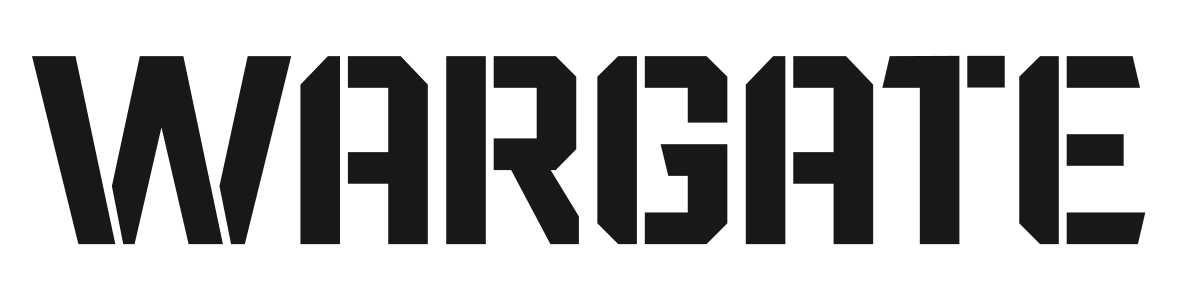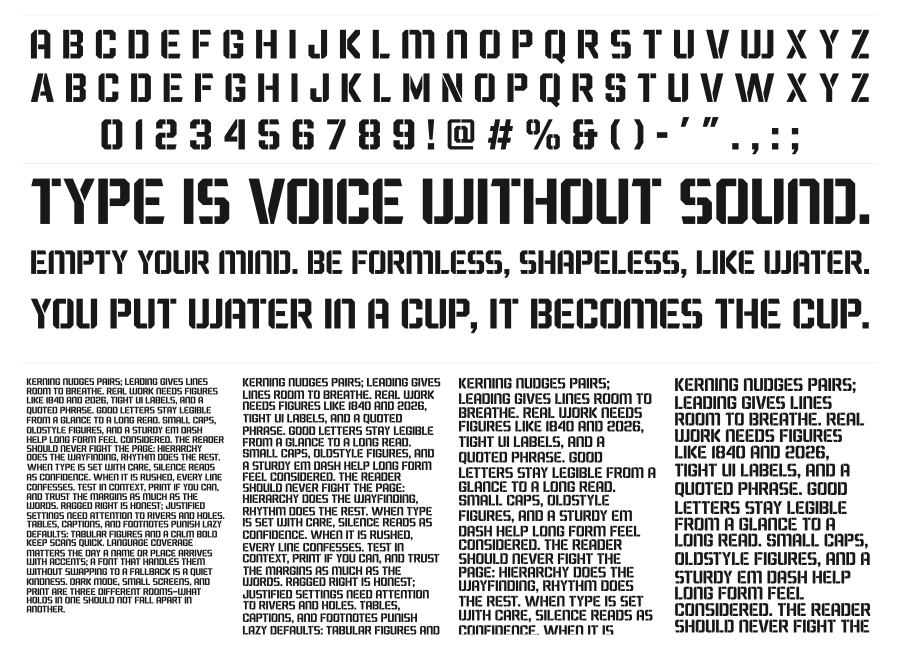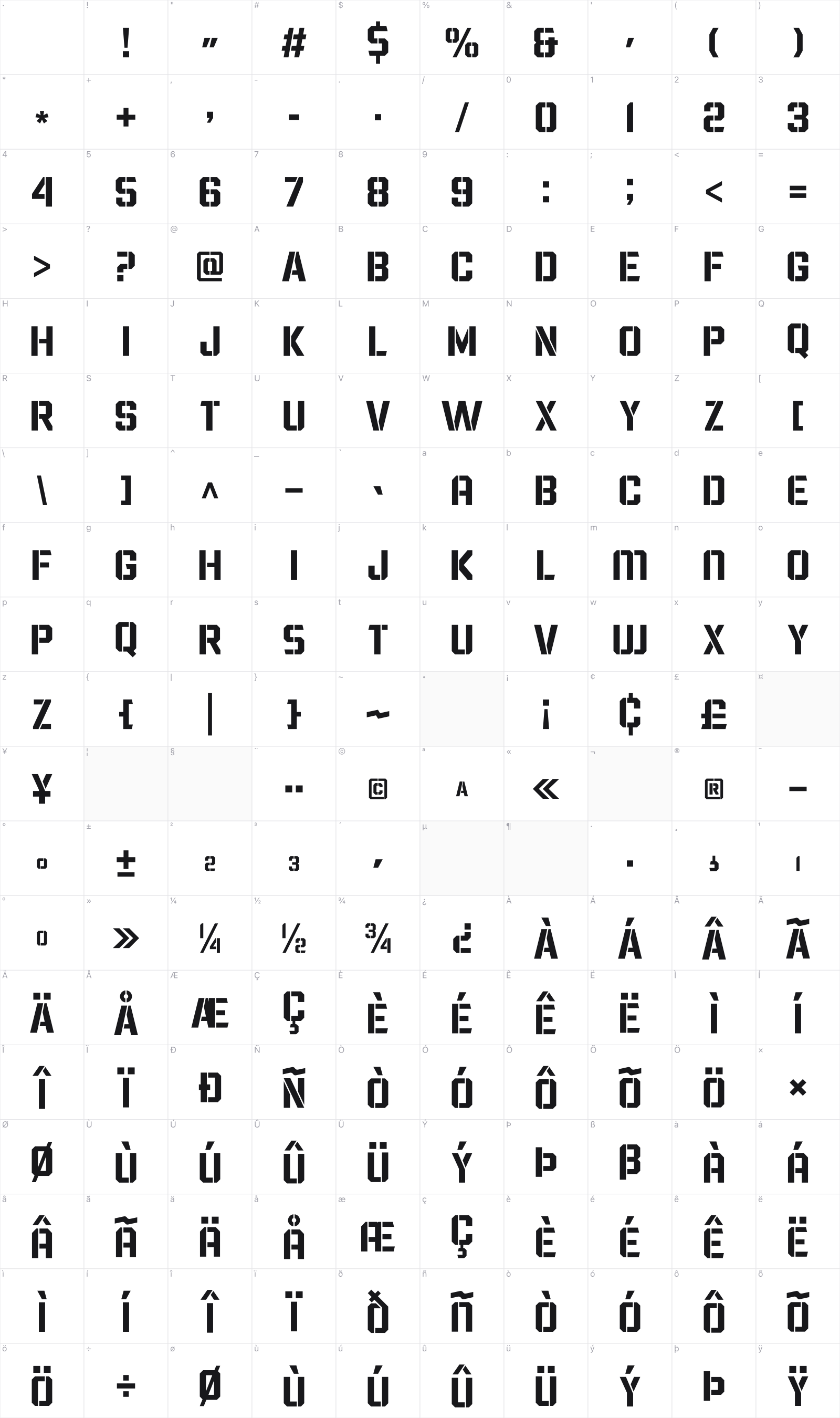
Wargate
Wargate is a bold condensed stencil display font built from modular rectangular blocks with characteristic gap cuts at stroke intersections. The design pulls directly from military and industrial stencil traditions, delivering a dense, aggressive texture at display sizes. Strong choice for gaming, sports branding, streetwear, and any context that calls for raw tactical energy.